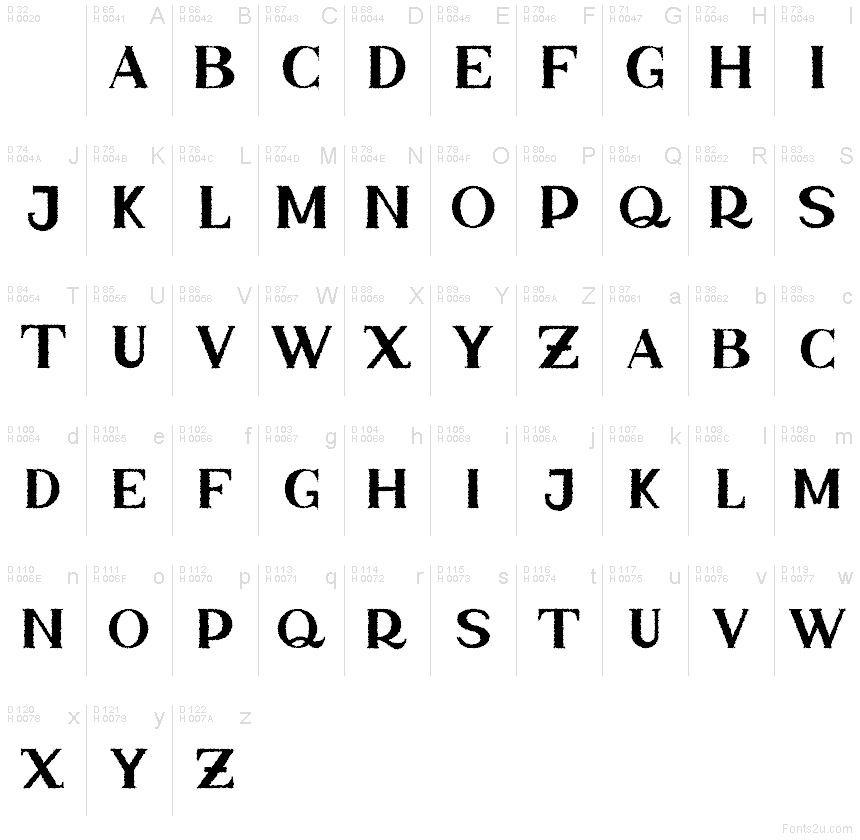
Reins Rough Regular Demo
Reins Rough font by Craft Supply Co. is an eroded serif display font created by the talented folks at Craft Supply Co. It presents an expanded bold appearance with a distressed touch giving it a vintage feel and rugged aesthetic. This expressive typeface brings all reader attention to the text where it’s applied.
Reins Rough is great for branding, packaging, clothing design, posters, book covers, stationery items, banners, CDs and movie covers/artworks. Use it furthermore in titles and headings or any other application where readable body text isn’t required.